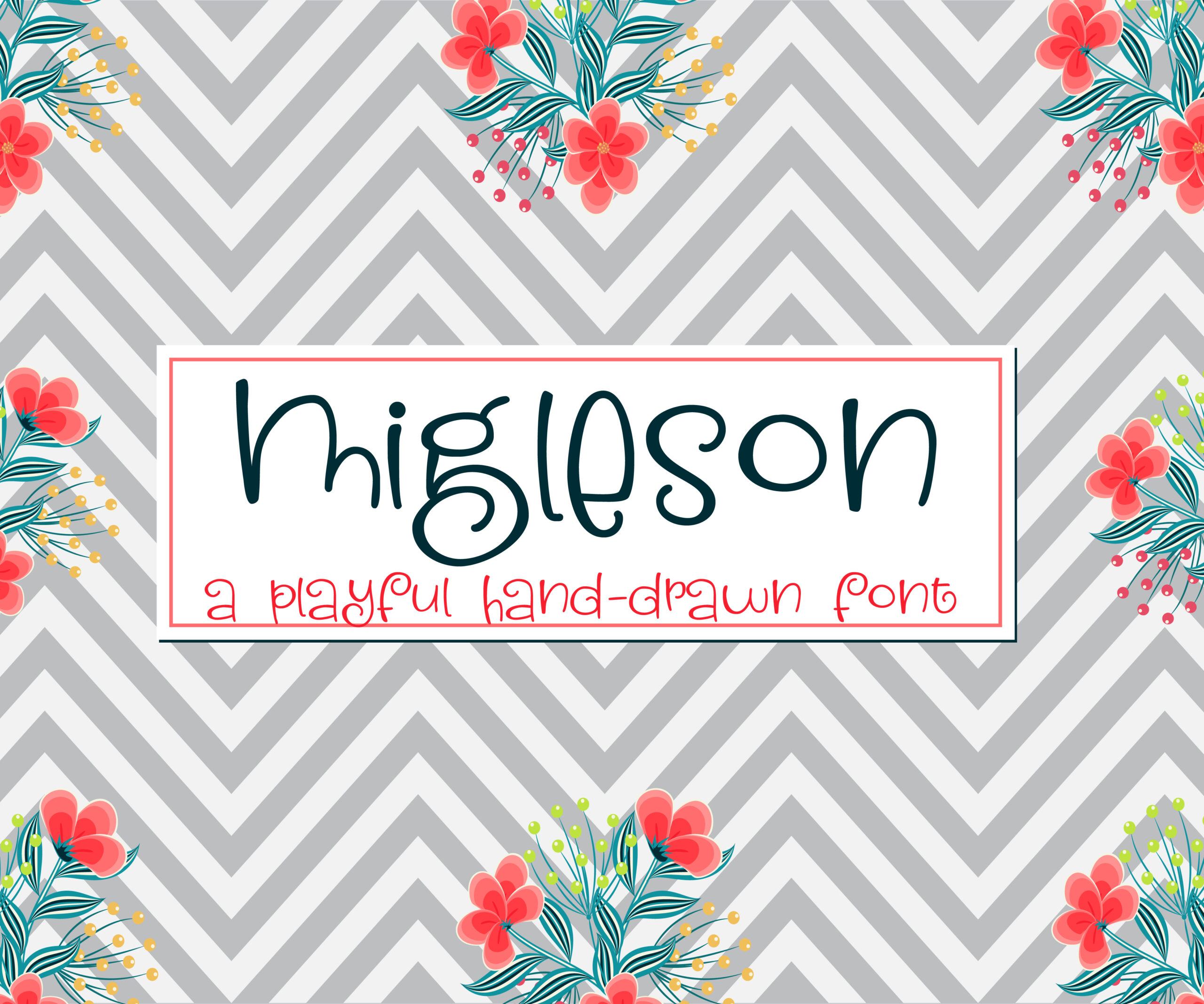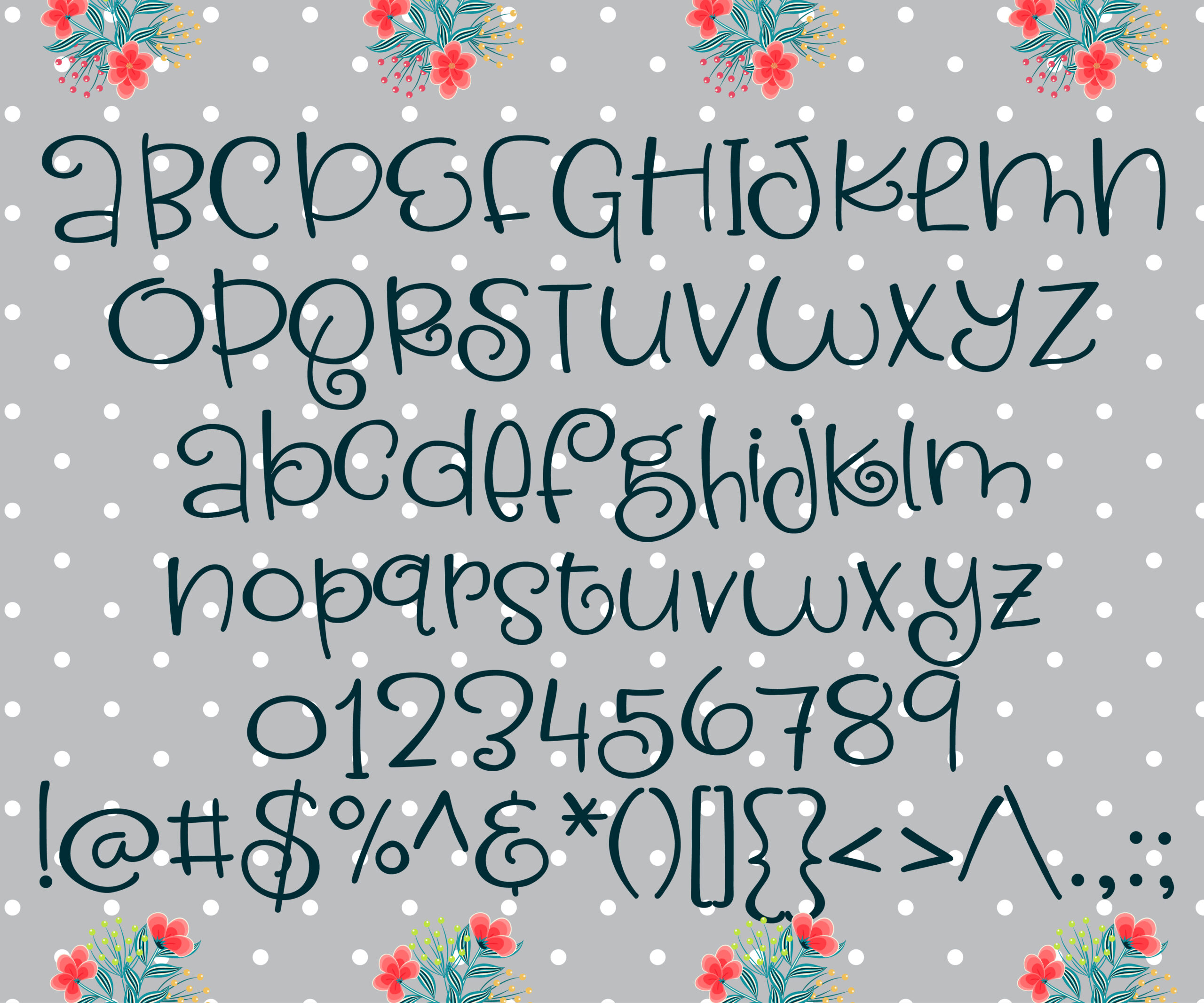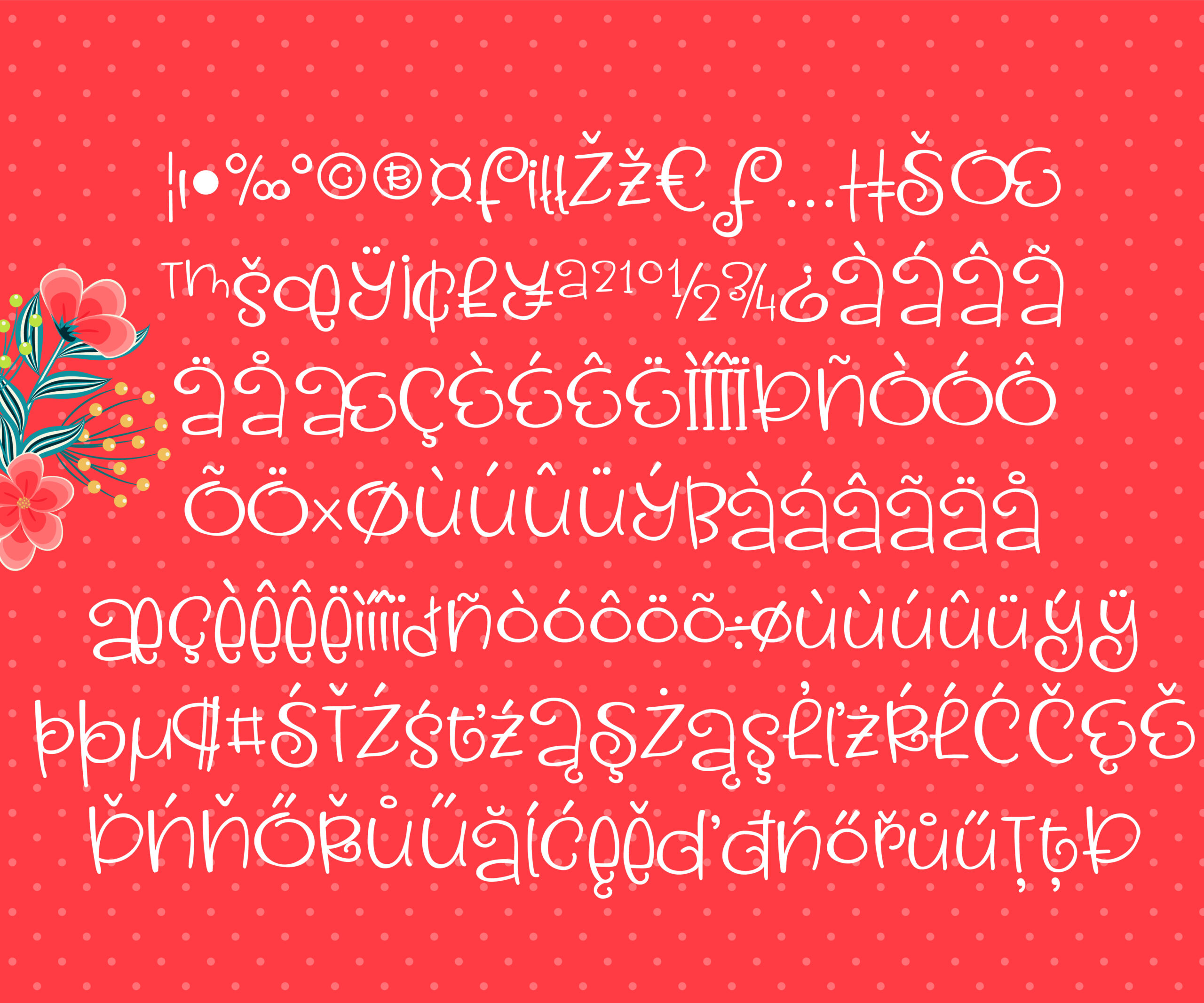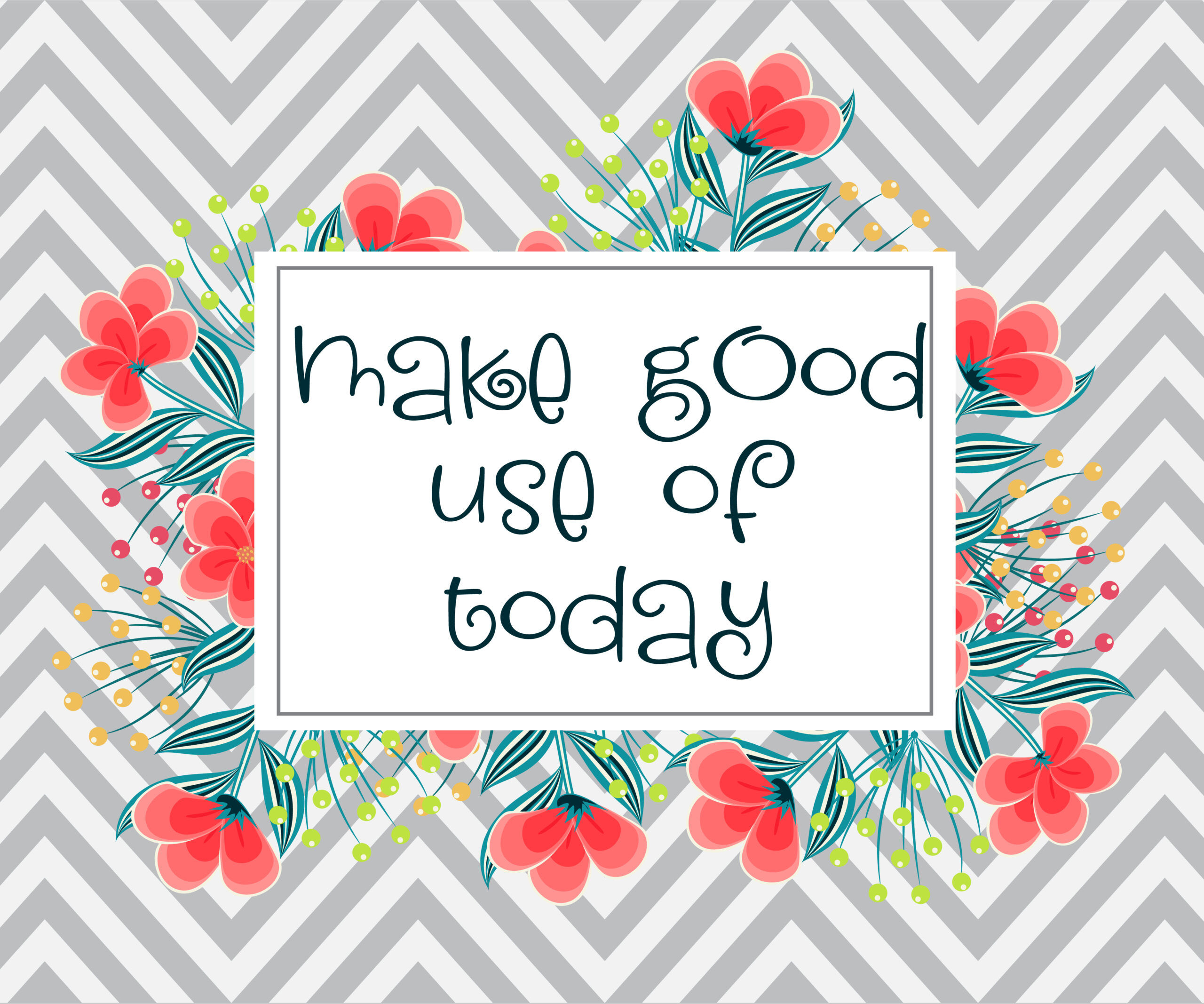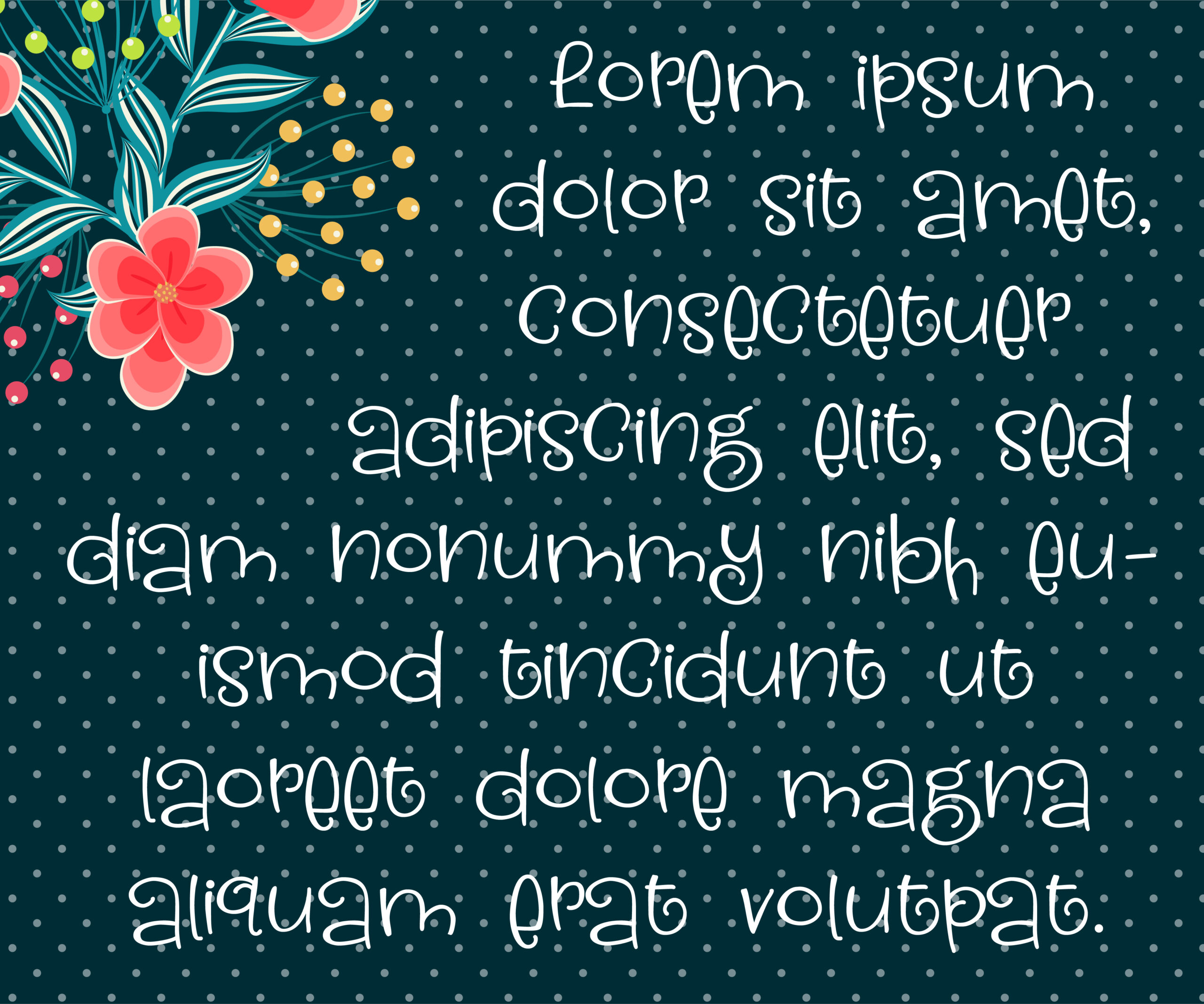
Migelson Font
About Migelson Font
Migelson is a cute and whimsical font is full of little kicks and curls. It’s hand-written look makes your projects have a crafty feel.